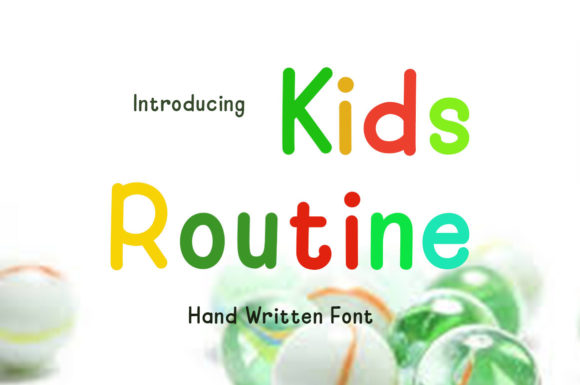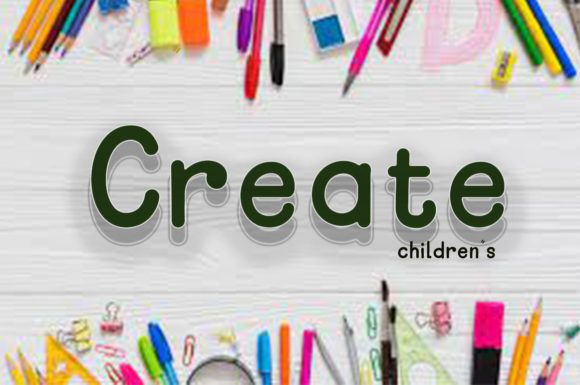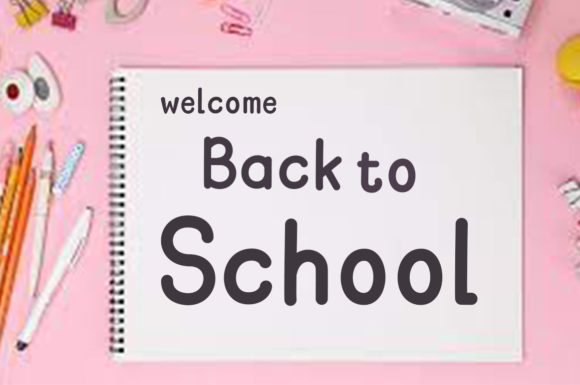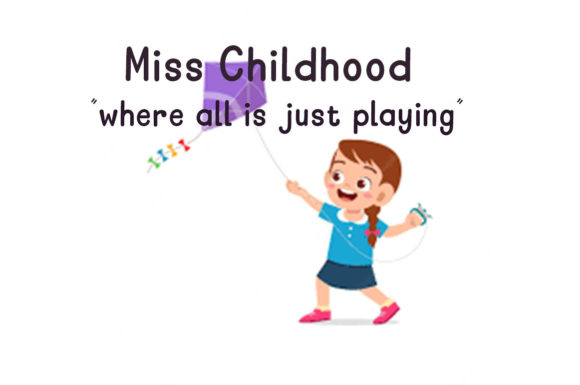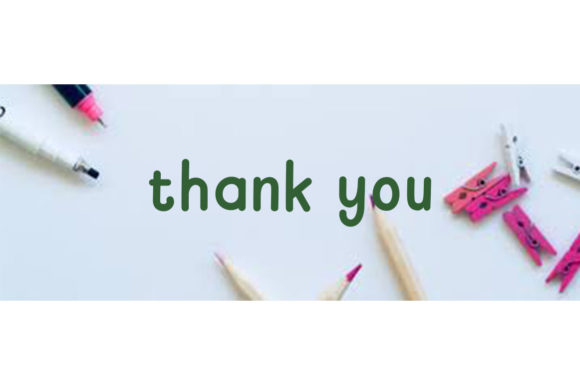
Kids Routine Font
About Kids Routine Font
Kids Routine is a sweet and simple handwritten font that exudes a natural and unique style. With its charming simplicity, this font proves to be incredibly fitting for a diverse range of designs, offering a versatile and playful touch. The beauty of Kids Routine lies in its adaptability, leaving room for boundless creativity limited only by your imagination.
The sweet and simple nature of Kids Routine makes it an ideal choice for a variety of design applications. Whether you’re working on children’s book covers, educational materials, greeting cards, posters, or any creative project aimed at a youthful audience, Kids Routine brings a delightful and approachable quality to the forefront.
The handwritten charm of Kids Routine adds a personal and warm touch to your designs, creating a connection with the audience. Its natural strokes and uncomplicated style contribute to an authentic and friendly atmosphere, making it suitable for projects where a playful and genuine aesthetic is desired.
Kids Routine encourages you to let your imagination run wild. Its versatility makes it suitable for both casual and more polished design contexts, allowing you to explore various creative possibilities. The font becomes a canvas for your ideas, enhancing the overall visual appeal of your projects with its sweet and simple handwritten style.
In summary, Kids Routine is more than just a font; it’s a sweet and simple design companion that adapts to a wide array of creative endeavors. Let your imagination guide you as you incorporate this font into children’s books, posters, or any project that calls for a charming and playful touch. With Kids Routine, every design becomes an opportunity to infuse warmth and joy into your creations.